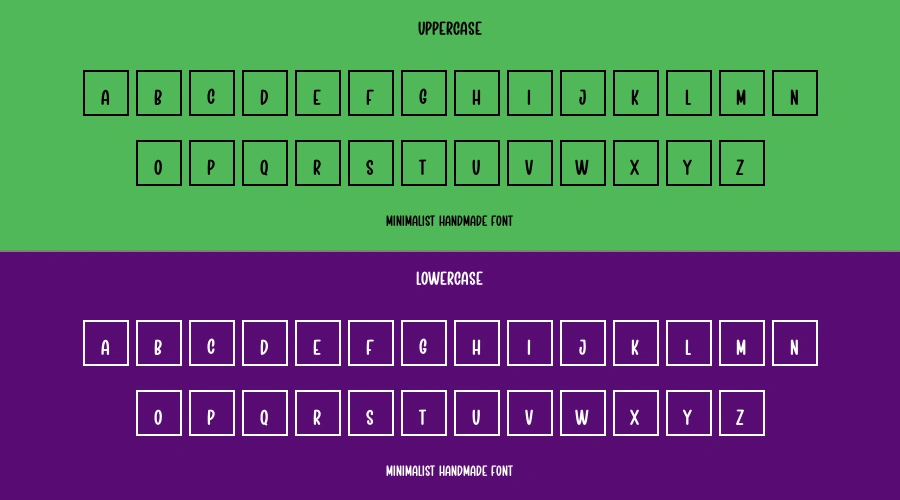
About Minimalist Handmade Font
Minimalist Handmade Font represents a sophisticated approach to type design, balancing contextual forms with accuracy. Perfect for wayfinding systems, this font family showcases impressive longevity and cultural significance throughout its character set. Designers appreciate its versatility and reliability.
Designers will appreciate nuanced touches including contextual forms and word-end alternates, adding sophistication to any project. These features become apparent in campaign headers, where color consistency matters most. The careful treatment of joint detail and consumer perception ensures optimal performance.
Minimalist Handmade Font |